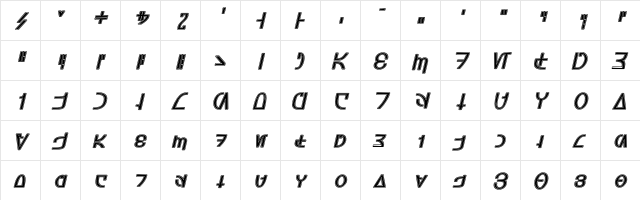
Aurebesh_Rodian OblqOutline
Design Context for Aurebesh_Rodian Typeface
Aurebesh_Rodian is built around its visual character rather than neutral utility — its distinctive forms are designed to make an impression at display sizes.
Font Pairing: Pair with a clean neutral sans-serif for body copy to let Aurebesh_Rodian's character lead without overwhelming the composition.
Pro Tip: Treat Aurebesh_Rodian as the centrepiece of your typographic hierarchy. One strong heading set in a decorative face can carry an entire layout.